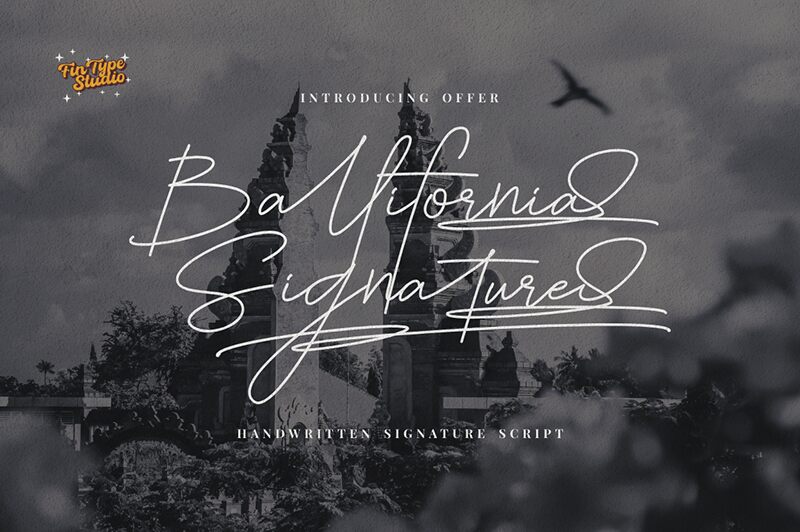
Ballifornia Signature font by FinTypeStudio embodies a signature style with remarkable fluidity and elegance. Its light handwritten aesthetic gives it a contemporary feel that resonates beautifully on screen or paper. The stunning script font contains wispy ligatures, rounded wide curves, and amazing details for serifs.
Use this free handwritten font to design captivating book/album covers, posters, banners, packaging boxes and labels. Utilize its artistic flare in typography design for stationery items like invitations & greeting cards. Other suggested uses include advertising media designs (online and print) especially folded magazines brochures newspapers etc.